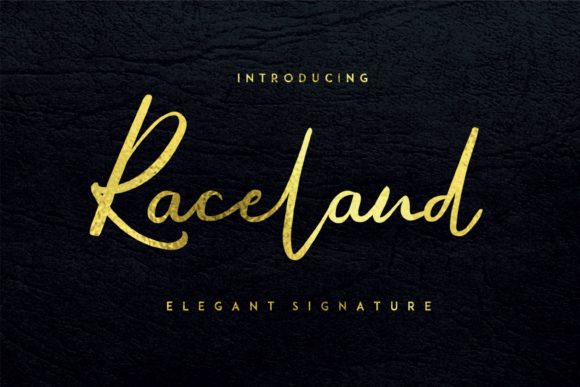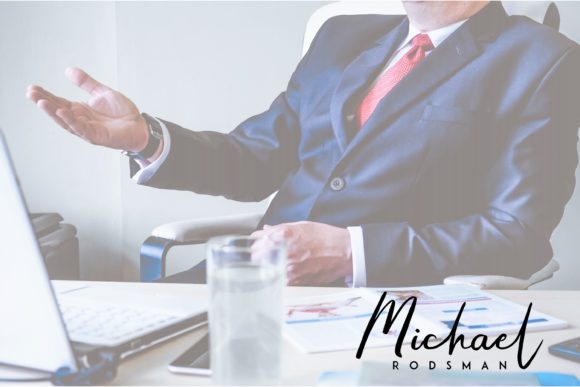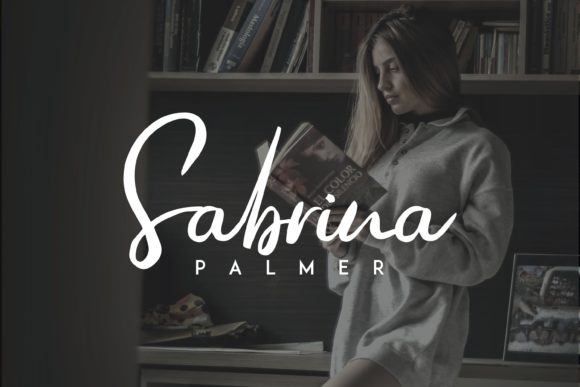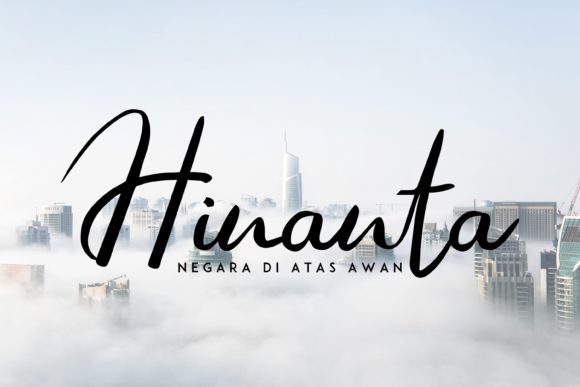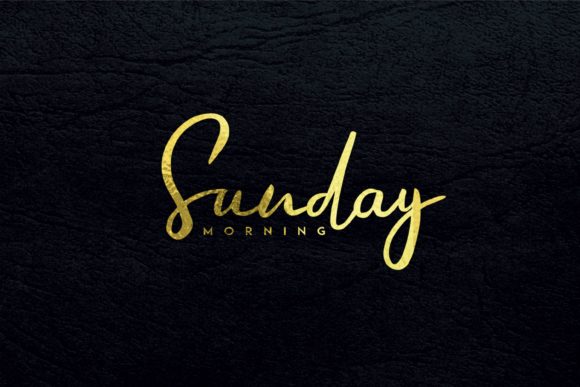
Raceland Font
About Raceland Font
The Raceland is an amazing signature font with a great readability. It has a beautiful touch that gives an elegant impression.